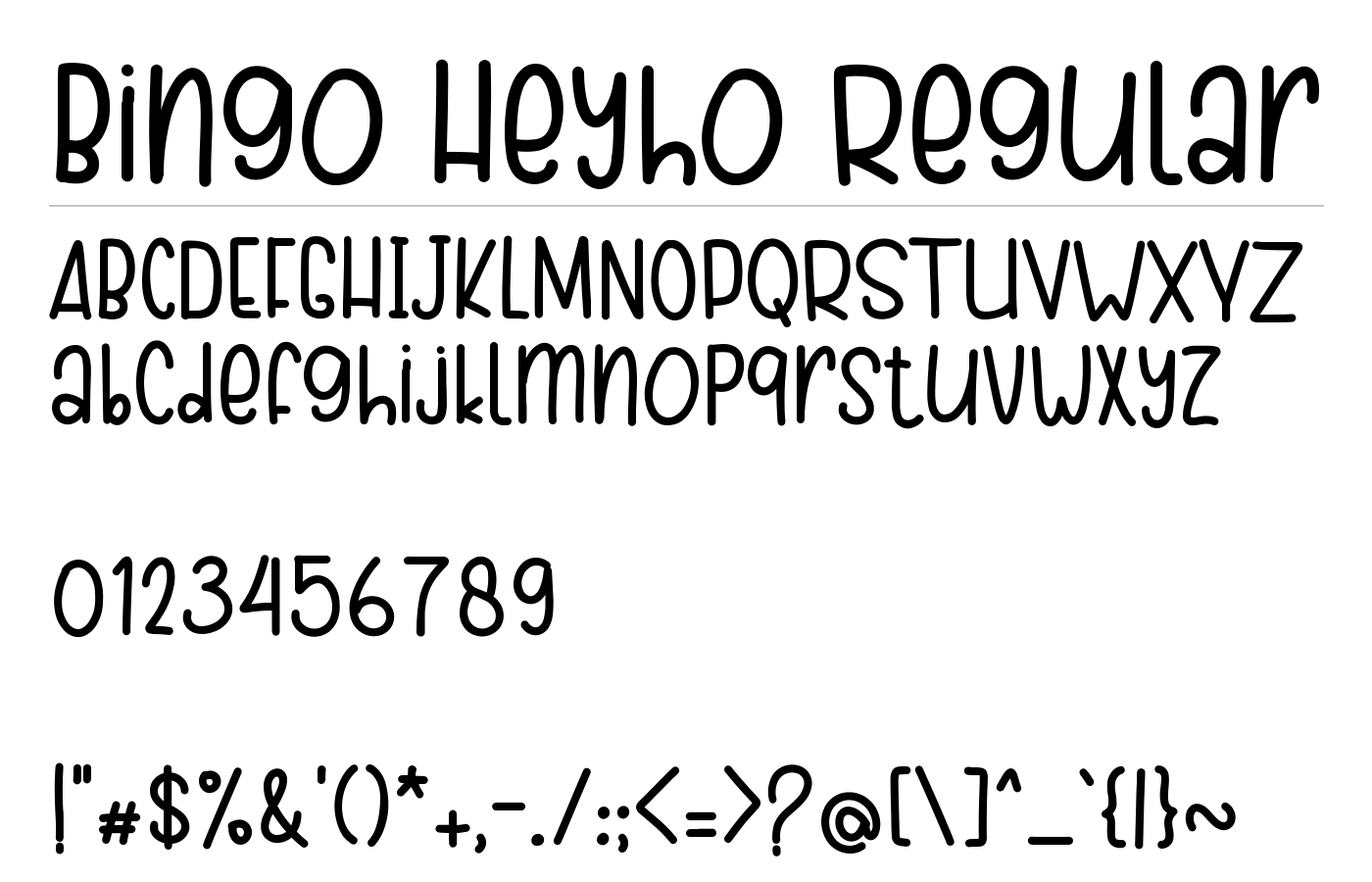
Bingo Heyho Regular is a playful sans serif font with a casual, handwritten feel. Its rounded, slightly irregular letterforms and medium weight make it approachable and friendly, perfect for designs that want to convey warmth and creativity. This font works well for children's books, informal branding, and fun editorial projects where a lively, unique personality is desired.
Bingo Heyho Regular Font
About Bingo Heyho Regular Font
| Font family | Bingo Heyho Regular Font |
| Designer | Dian haniffan hadi |